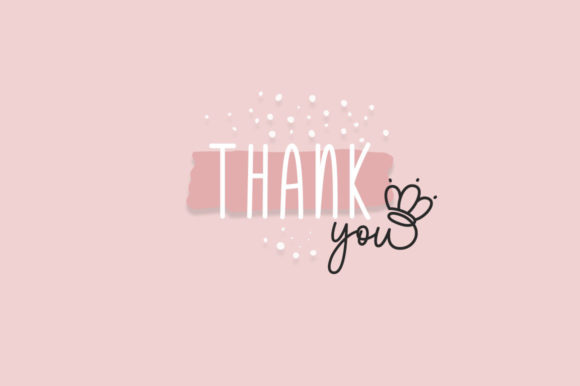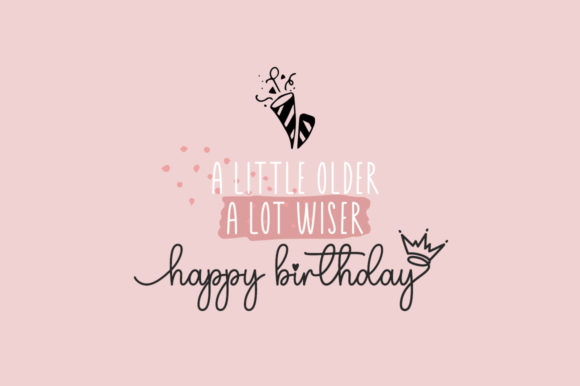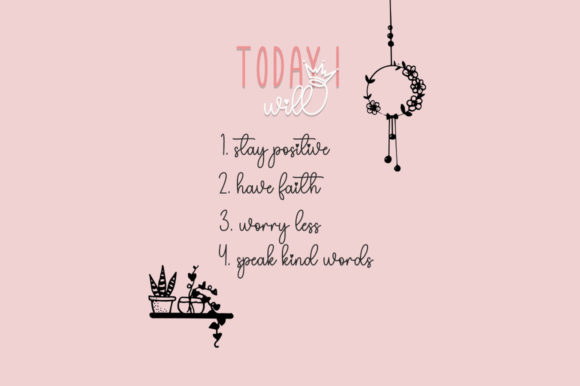
About Jesica Justine Font
Jesica Justine consists of two fonts designed to complement each other perfectly. Together or apart, these fonts are ideal for adding a chic and cheery touch to your crafts. Jesica Justine is PUA encoded which means you can access all glyphs and swashes with ease!